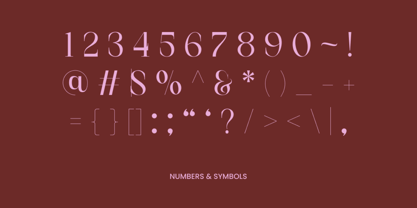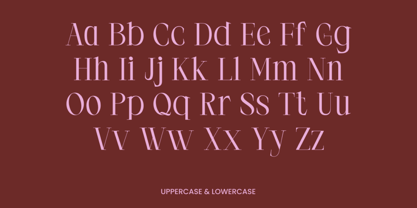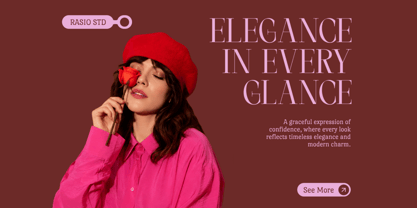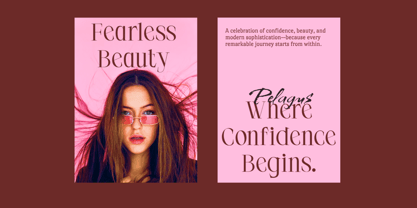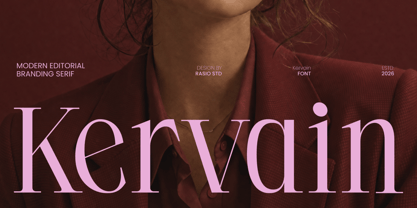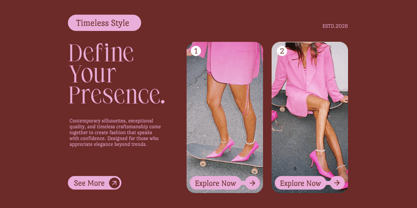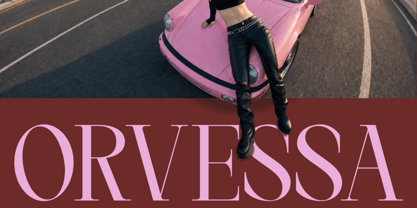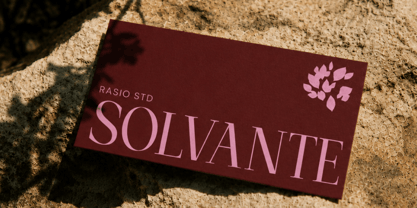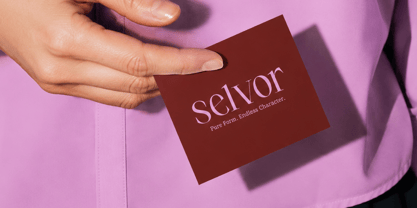
Kervain
von Rasio Studio
Die Schriftfamilie Kervain wurde von Fajar Indra entworfen und von Rasio Studio veröffentlicht. Kervain enthält 1 Stile. Mehr über diese Familie
Kervain is a refined modern editorial serif font designed to express luxury, confidence, and timeless sophistication. Featuring elegant high-contrast strokes, graceful curves, and elongated proportions, this typeface delivers a polished visual identity that elevates every composition. Inspired by luxury magazines, couture branding, and contemporary minimalist aesthetics, Kervain blends classic serif craftsmanship with modern refinement.
Relevance and Use Case is perfect for sophisticated branding projects that require a luxurious editorial aesthetic. It is an excellent choice for fashion houses, beauty brands, skincare packaging, luxury hotels, boutique businesses, perfume collections, editorial magazines, wedding stationery, premium product packaging, creative agencies, portfolio websites, logo design, book covers, advertising campaigns, and elegant social media content where refined typography becomes the focal point.
Designer: Fajar Indra
Foundry: Rasio Studio